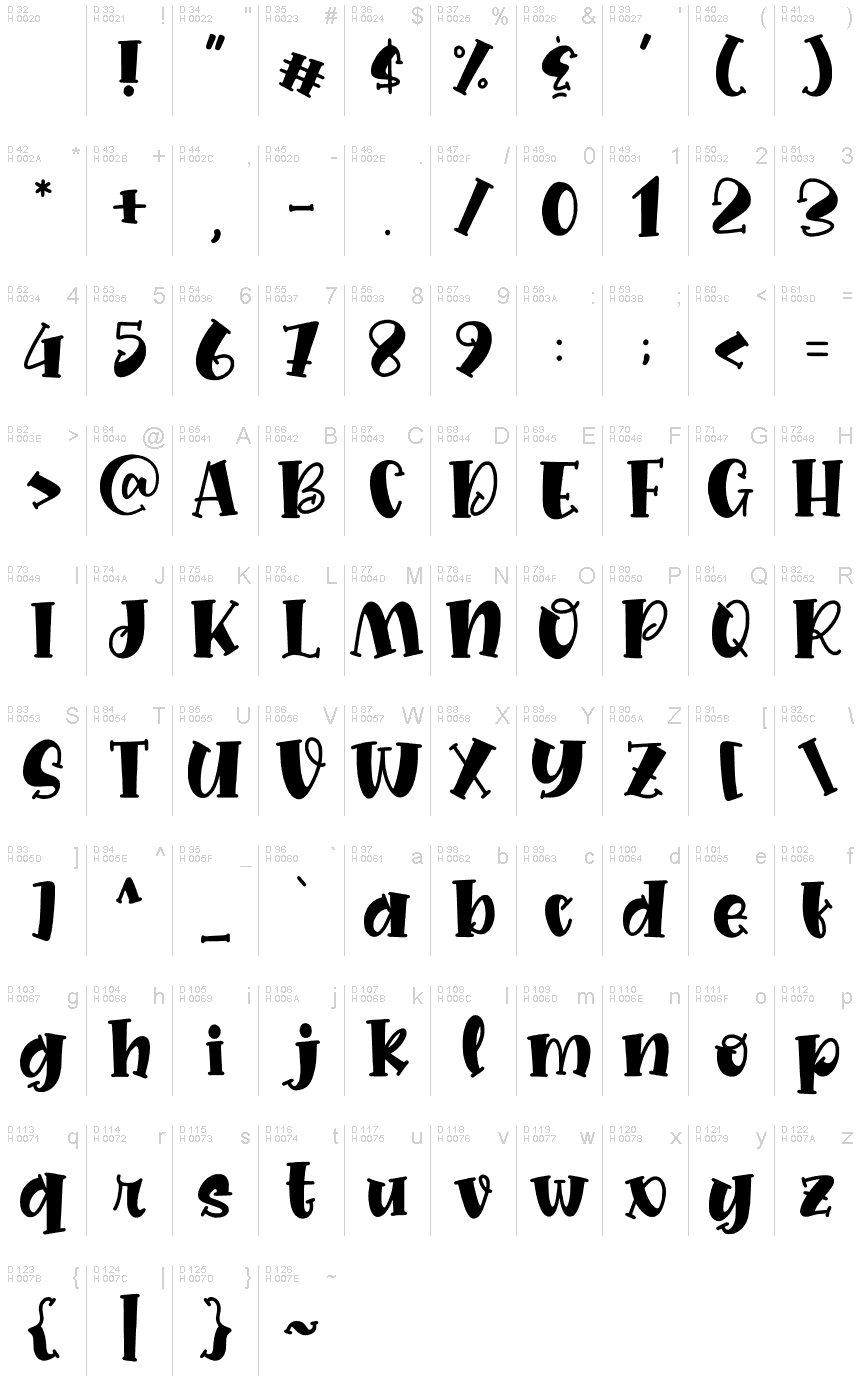
Quirkid Solid
Quirkid Solid is a bold, cartoon-style display font designed by Abo Daniel. It's part of the Quirkid font family and adds an extra playful touch to any project you create. Its unique design makes it perfect for eye-catching headlines, logos and posters, as well as branding and packaging designs. With its energetic vibe, this font is suitable for fun projects that require some added flair!